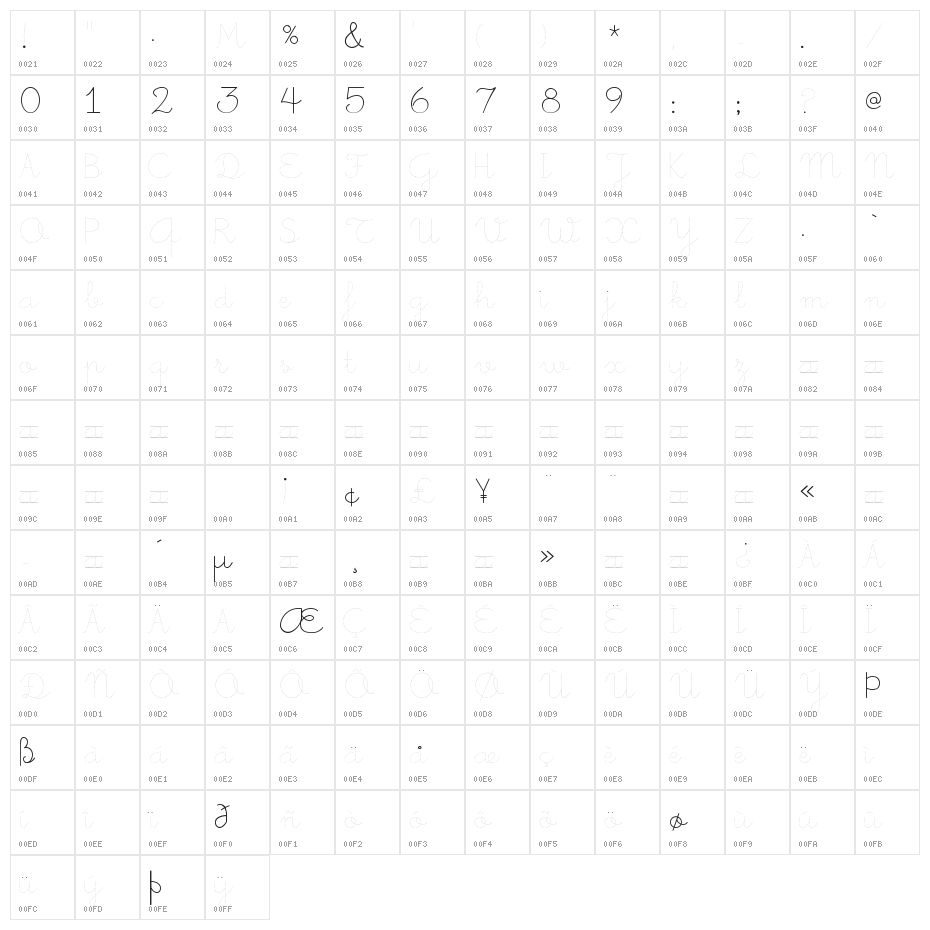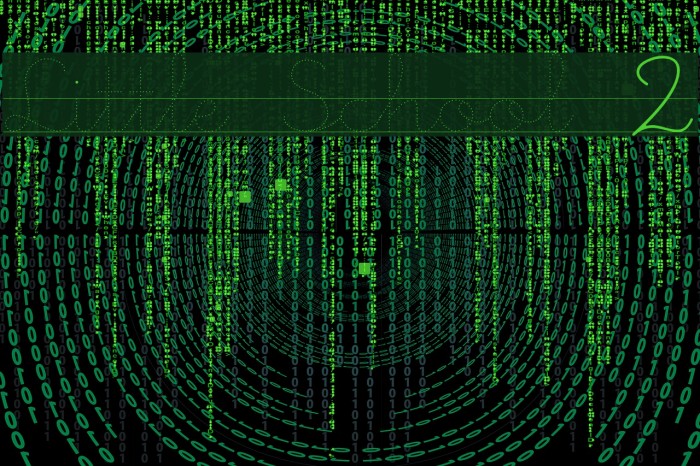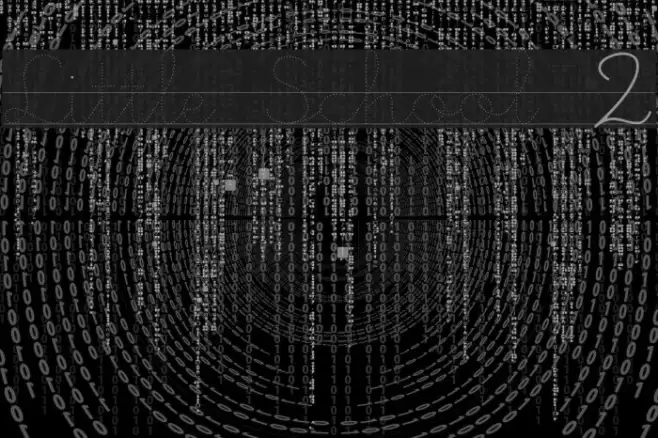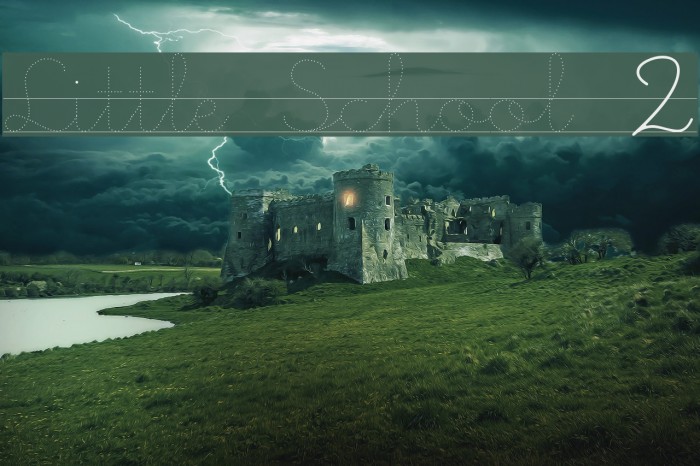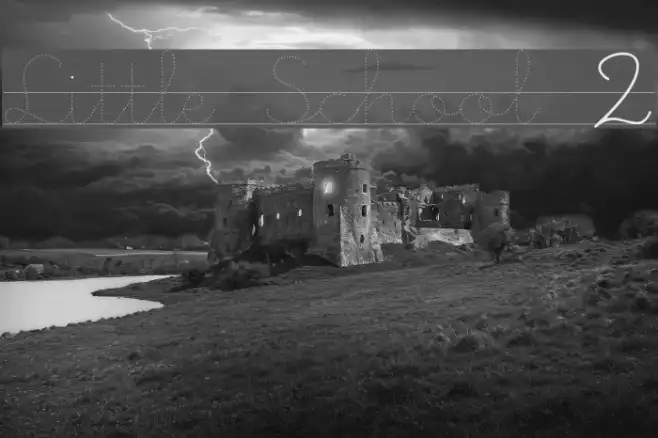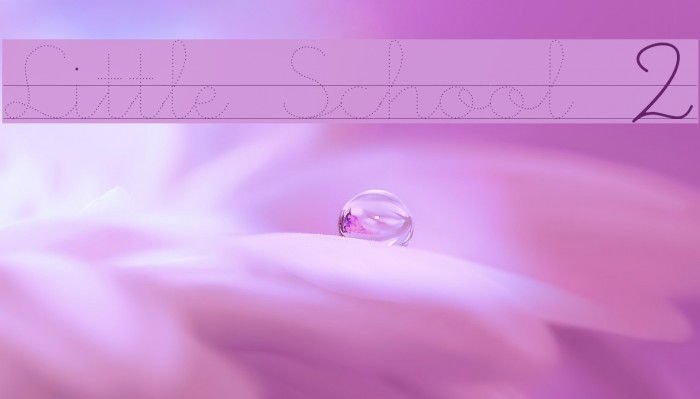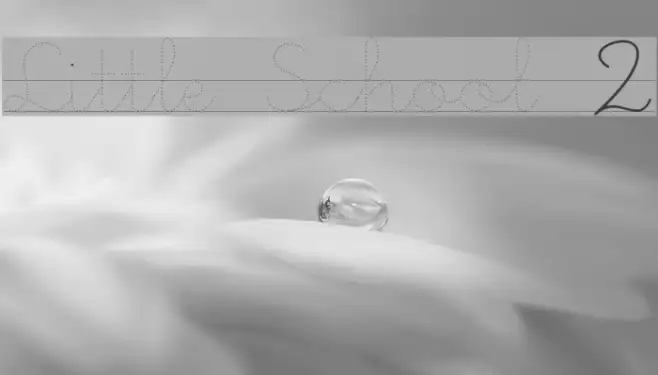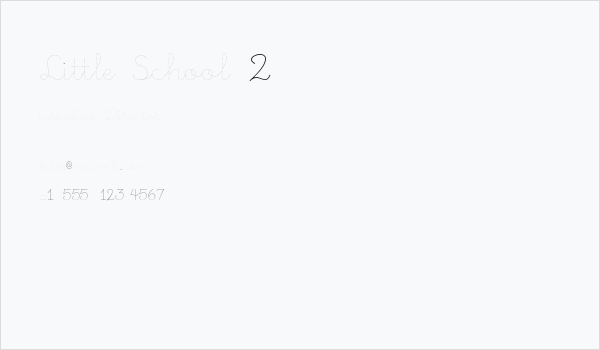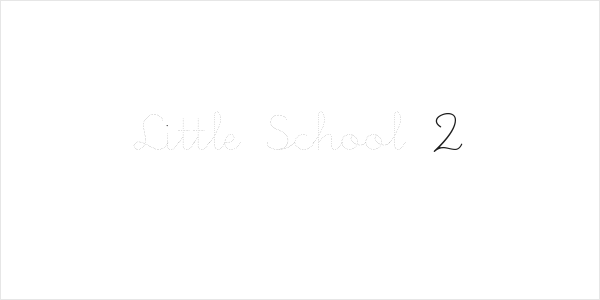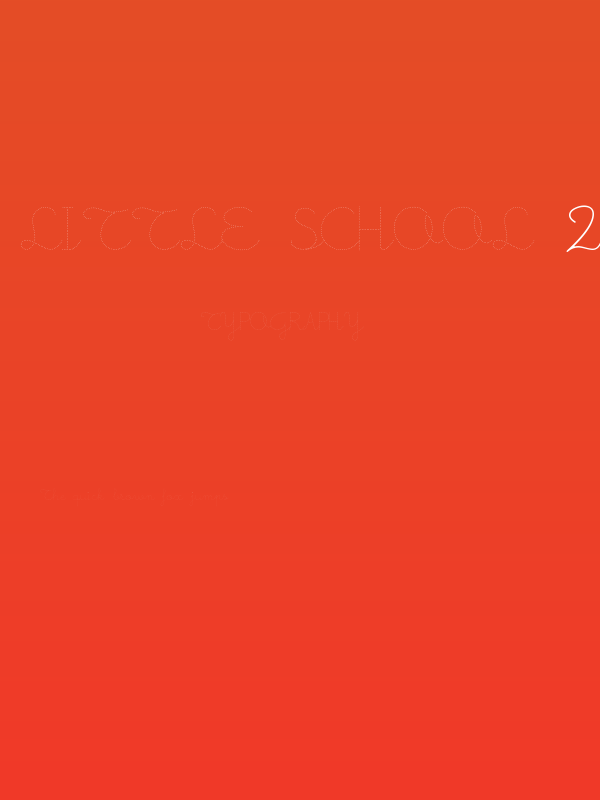
Little School 2 Font
Little School 2 Description
This font is designed to mimic the style of traditional handwriting practice sheets used in early education. The uppercase and lowercase letters are connected with dotted lines, providing a guide for learners to trace and practice their writing skills. The numbers and special characters are presented in a clear, bold style, making them easy to read and trace. The overall design is simple and functional, aimed at helping young students develop their handwriting abilities. The font's structure is consistent, with a focus on legibility and ease of use for educational purposes.
| Overall Style | Educational |
| Use Case | Handwriting practice, educational materials. |
| Proposed Projects | Ideal for educational materials, handwriting practice sheets, and children's learning apps. |